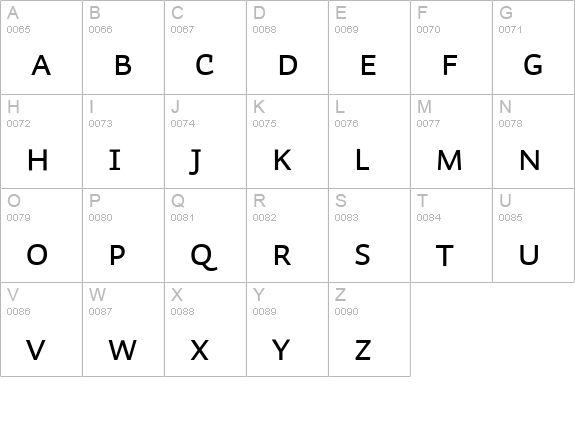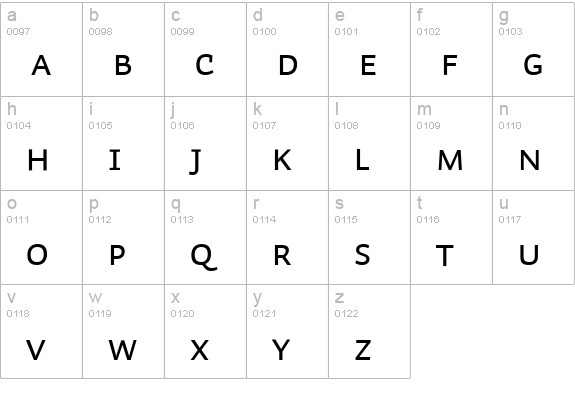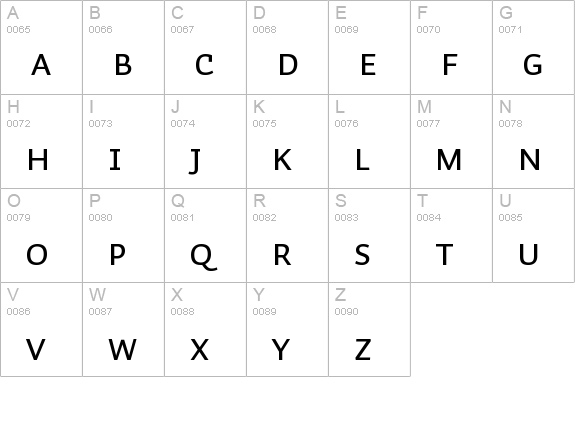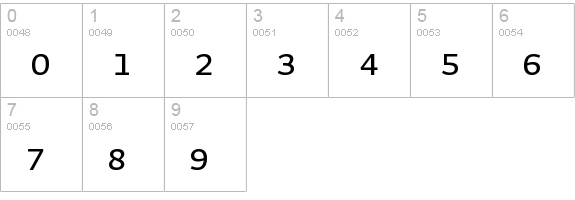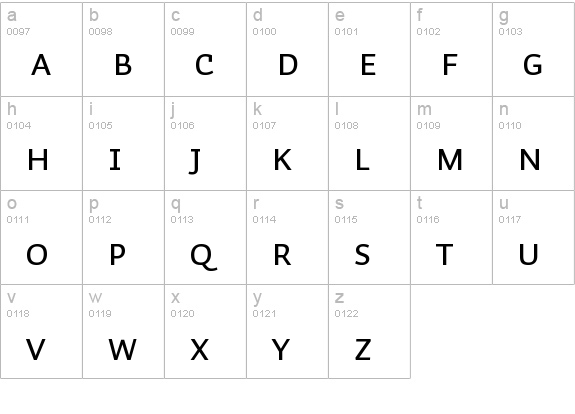
Auto 3 Regular SmCp is the standard, neutral variant in the Auto typeface family \xE2\x80\x94 well suited to general body text, paragraphs, and standard typographic work.
Auto 3 Regular SmCp font is a sleek and modern typeface that exudes sophistication and style. This font is perfect for a variety of design projects, from branding to web design to print materials. With its clean lines and contemporary look, Auto 3 Regular SmCp font is sure to make your text stand out. The best part? This amazing font is completely free to download at FontsMarket.com! Whether you're a designer looking to add a new font to your collection or a business owner in need of a fresh look for your marketing materials, Auto 3 Regular SmCp font is the perfect choice. Don't miss out on this fantastic opportunity to enhance your designs with this elegant and versatile font. Download it today and see the difference it can make!